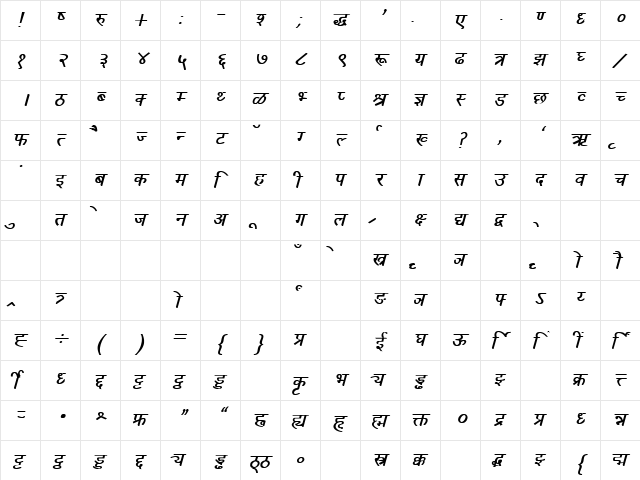
DevLys 030 Bold Italic
Design Context for DevLys 030 Typeface
DevLys 030 is a composed and adaptable typeface that performs quietly and consistently across a wide range of design contexts. Its italic angle brings a sense of urgency and motion to the letterforms. Its bold stroke weight gives it real presence on the page.
Pro Tip: Try DevLys 030 for annotation and caption copy alongside an upright companion — the contrast in angle creates a dynamic but ordered typographic system.